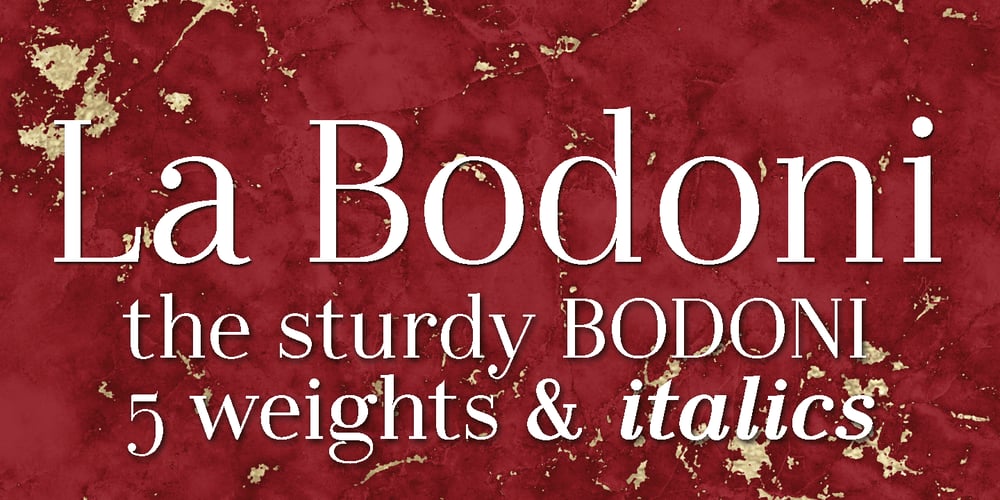
LaBodoni Font Family was designed by Gert Wiescher and published by Wiescher Design. LaBodoni contains 60 styles and family package options. LaBodoni is my newly designed Bodoni. After having redesigned and saved Bodoni’s Originals I thought it was about time I adapted the face to modern times. Here is what I did! The font is much more readable. It flows more evenly than the very bouncy design of Giambattista Bodoni. For better usability I give you an alternative set of each normal cut that has monospaced numerals (tabular figures — TF) and mathematical glyphs – optimized for perfect tabulating alignment. I think you will like the new LaBodoni. I priced it a little bit more on the “modern” side, but I only sell triplets or the whole family of 15. Your very modern Bodonian designer Gert Wiescher